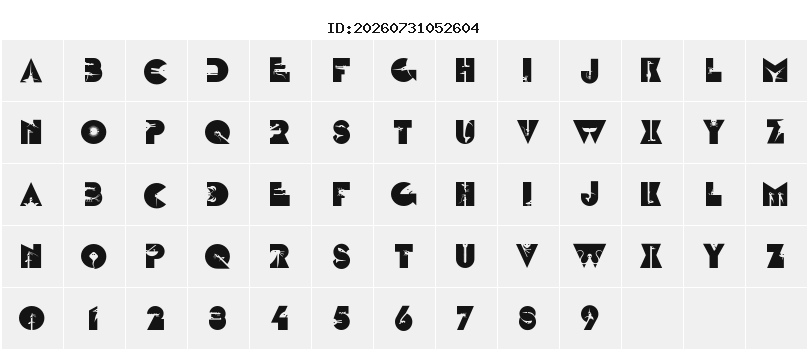
LTZootype Water Preview
About LTZootype Water.ttf
LTZootype Water.ttf is a modern, elegant sans-serif font designed for ultimate readability and visual harmony. Perfect for branding, headlines, web design, and print materials.